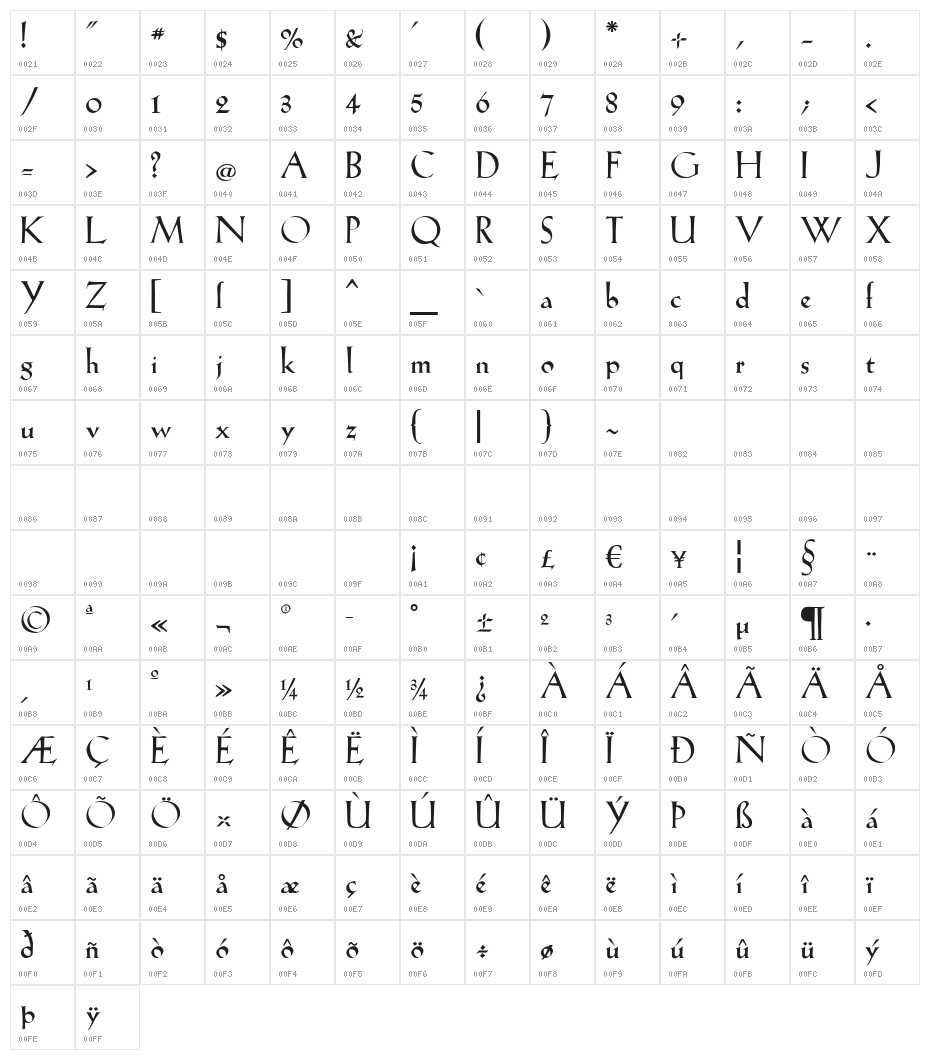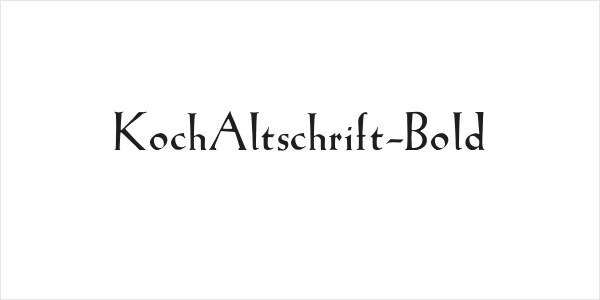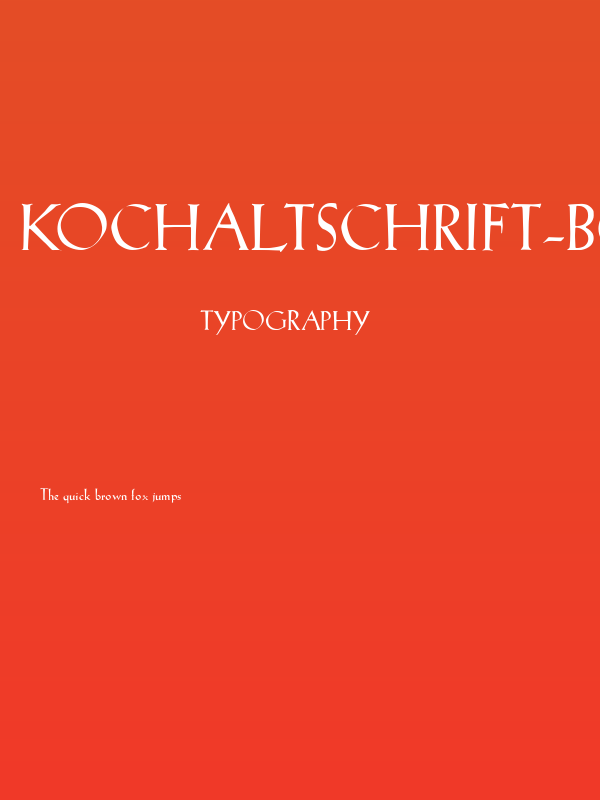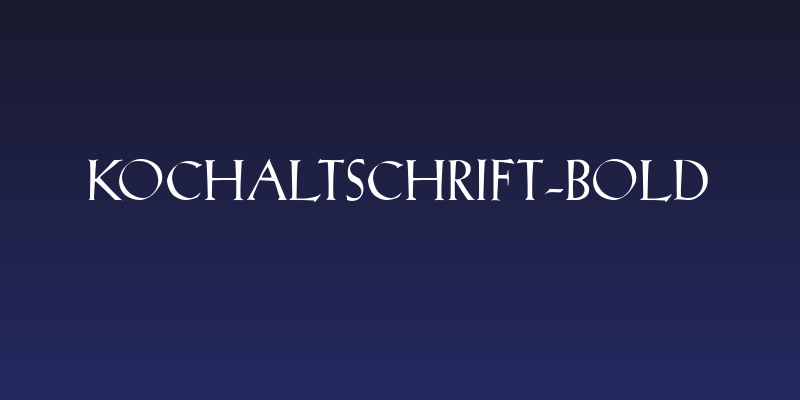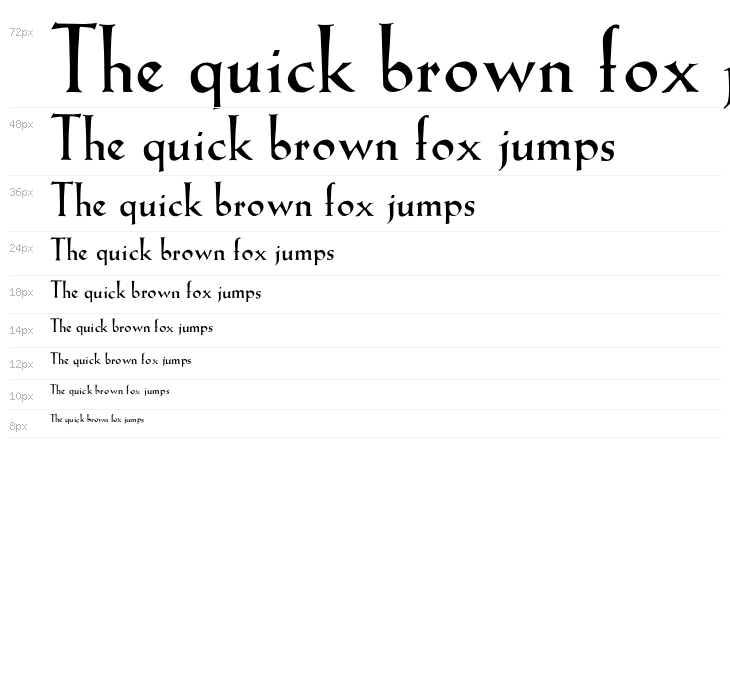
KochAltschrift-Bold Font
KochAltschrift-Bold Description
This font exhibits a classic and elegant style with a distinct calligraphic influence. The uppercase letters are characterized by sharp, angular serifs and a slight inclination, giving them a dynamic appearance. The lowercase letters maintain a consistent flow with subtle curves and a traditional serif structure. The numerals are uniquely styled, with a blend of sharp edges and smooth curves, adding to the font's overall sophistication. Special characters are crafted with attention to detail, complementing the font's aesthetic. This font is suitable for projects that require a touch of historical elegance and refinement.
| Use Case | Headlines, Logos, Formal Invitations |
| Proposed Projects | Ideal for formal invitations, historical documents, book covers, and branding that requires a classic touch. |